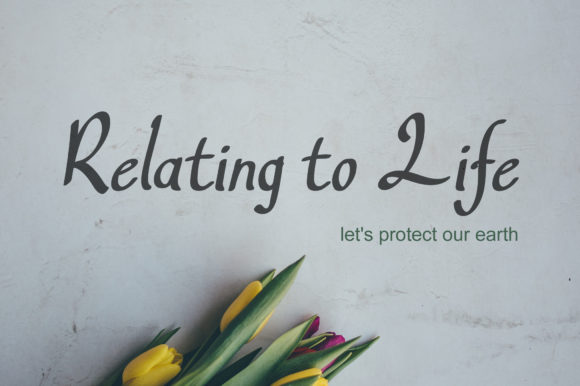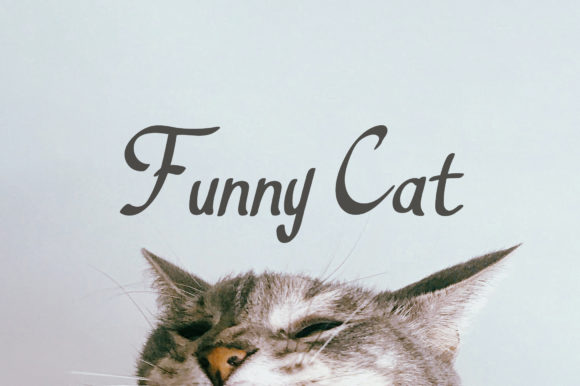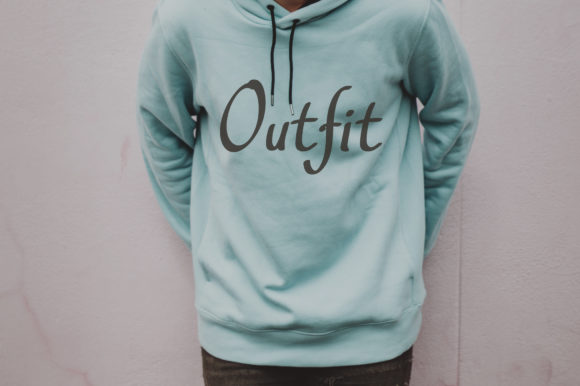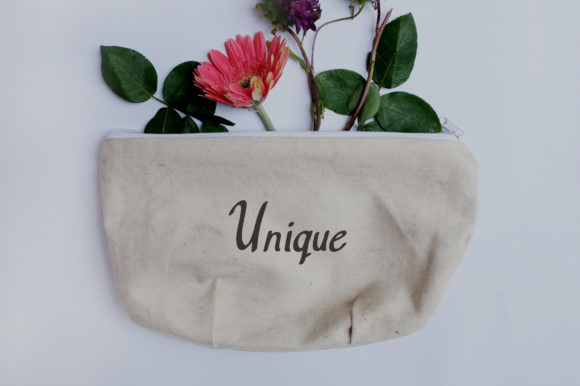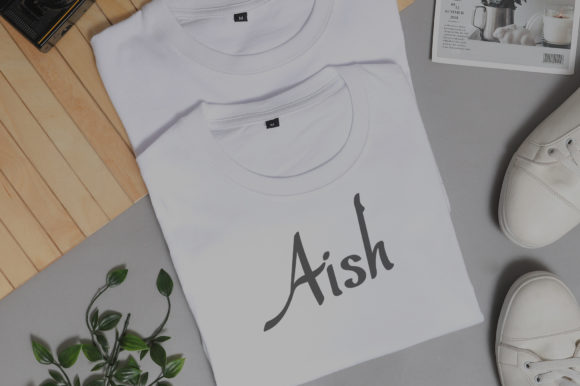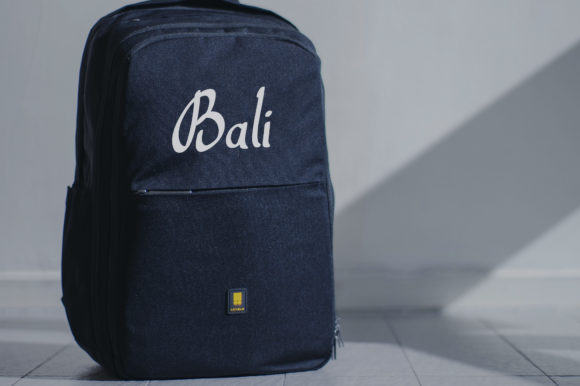
Introducing Dutiful Font: Elevate Your Designs with Elegance and Sophistication
Dutiful is a stunning script font that is sure to captivate your audience with its luxurious and elegant feel. This beautiful font features characters that dance along the baseline, adding a touch of sophistication to any design project. Whether you’re a designer, crafter, or DIY enthusiast, Dutiful Font is the perfect addition to your typography collection.
What Makes Dutiful Font So Special?
Dutiful Font stands out from the crowd with its unique and captivating design. The characters in this font seem to come alive, dancing along the baseline with a sense of movement and fluidity. This creates a sense of elegance and sophistication, making it perfect for designs that require a touch of luxury.
Key Features of Dutiful Font
- Beautiful Script Design: Dutiful Font features a stunning script design that is perfect for adding a touch of elegance to your designs.
- Characters that Dance Along the Baseline: The unique design of Dutiful Font features characters that seem to dance along the baseline, creating a sense of movement and fluidity.
- Luxurious and Sophisticated Feel: Dutiful Font is perfect for designs that require a touch of luxury and sophistication.
- Perfect for Designers and Crafters: Whether you’re a designer, crafter, or DIY enthusiast, Dutiful Font is the perfect addition to your typography collection.
Uses for Dutiful Font
Dutiful Font is a versatile font that can be used for a wide range of design projects. Here are some ideas to get you started:
- Wedding Invitations: Add a touch of elegance and sophistication to your wedding invitations with Dutiful Font.
- Branding and Packaging: Use Dutiful Font to create luxurious and sophisticated branding and packaging for your business.
- Signage and Displays: Dutiful Font is perfect for creating eye-catching signage and displays that require a touch of elegance.
- Stationery and Cards: Add a touch of luxury to your stationery and cards with Dutiful Font.
Tips for Using Dutiful Font
Here are some tips for getting the most out of Dutiful Font:
- Use it Sparingly: Dutiful Font is a statement font, so use it sparingly to add a touch of elegance to your designs.
- Pair it with a Simple Font: Pair Dutiful Font with a simple font to create a striking contrast and add visual interest to your designs.
- Experiment with Colors and Textures: Experiment with different colors and textures to add depth and interest to your designs.
Dutiful Font is a beautiful and captivating script font that is sure to elevate your designs with its luxurious and sophisticated feel. With its unique design and versatile uses, Dutiful Font is the perfect addition to any designer’s or crafter’s typography collection. So why wait? Get creative with Dutiful Font today and add a touch of elegance and sophistication to your designs!